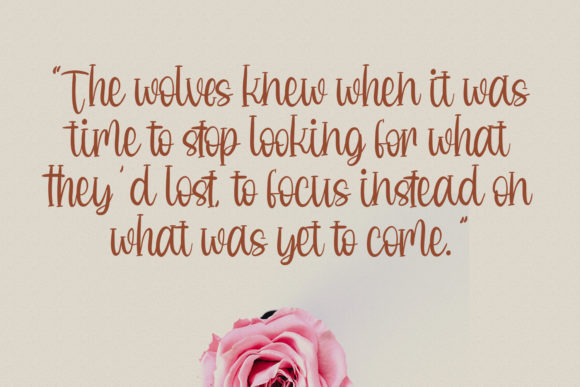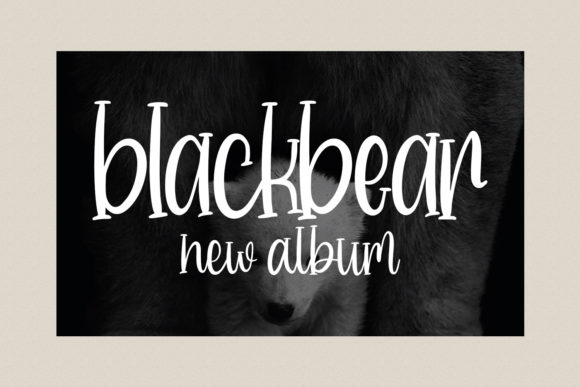
Everyday Hungry Font
db-ku.com - Script & Handwritten -- Everyday Hungry is a quirky script font. It features medium contrast strokes, fun characters, ligatures and alternates. To give you an extra creative work. Add it to any of your designs, and enjoy the results!